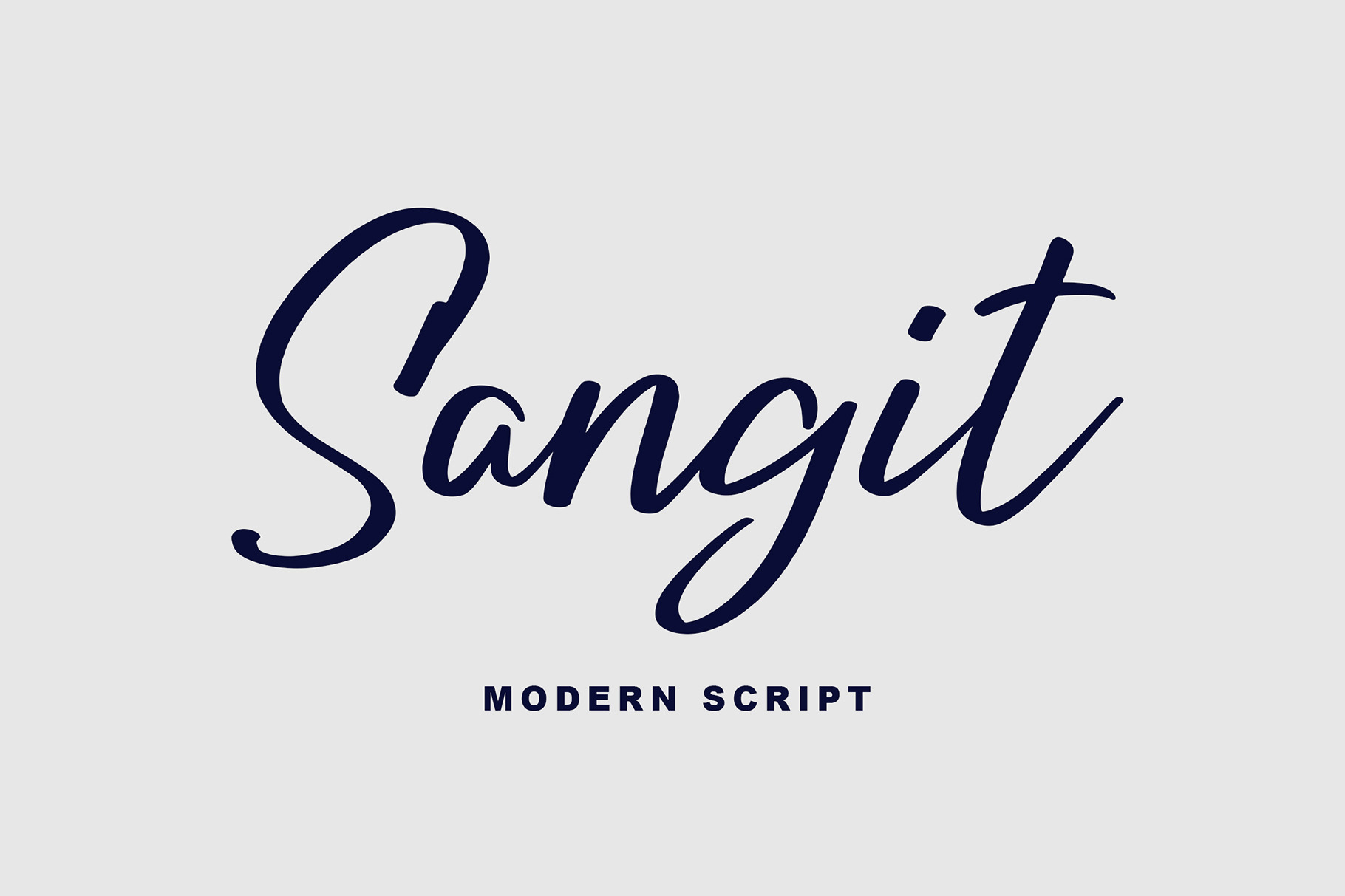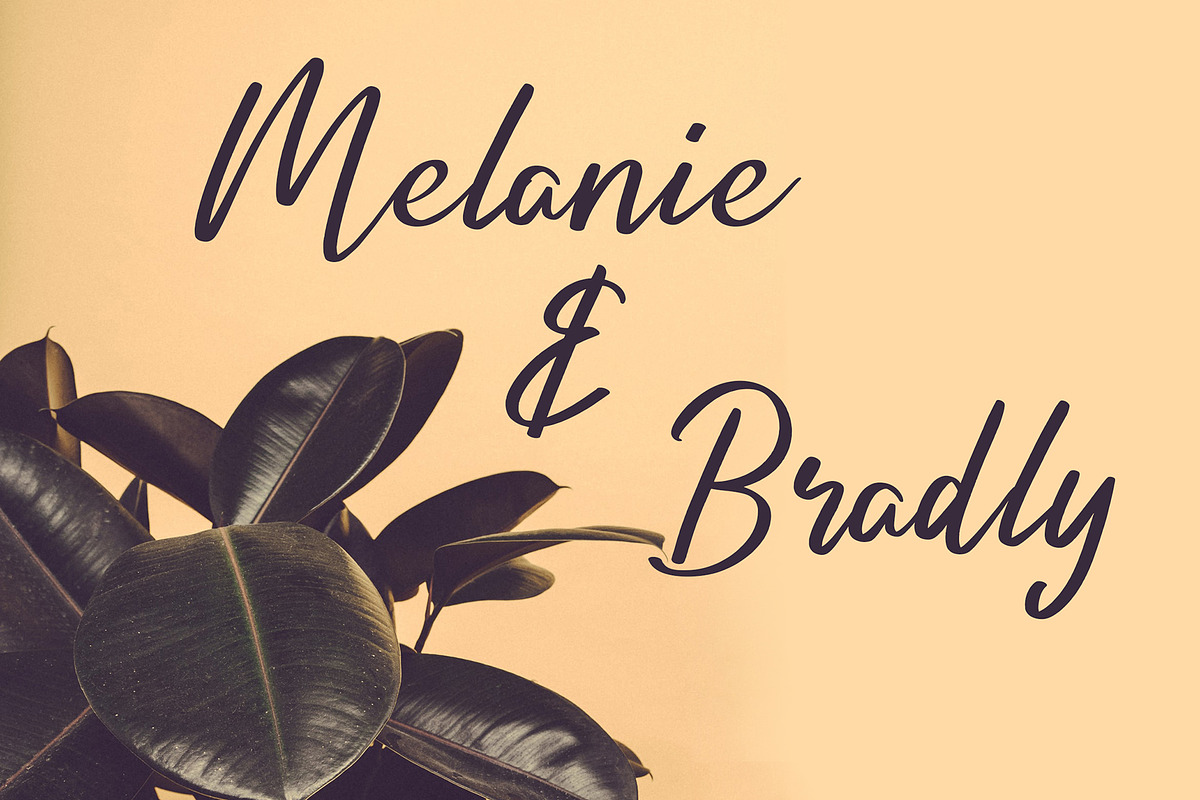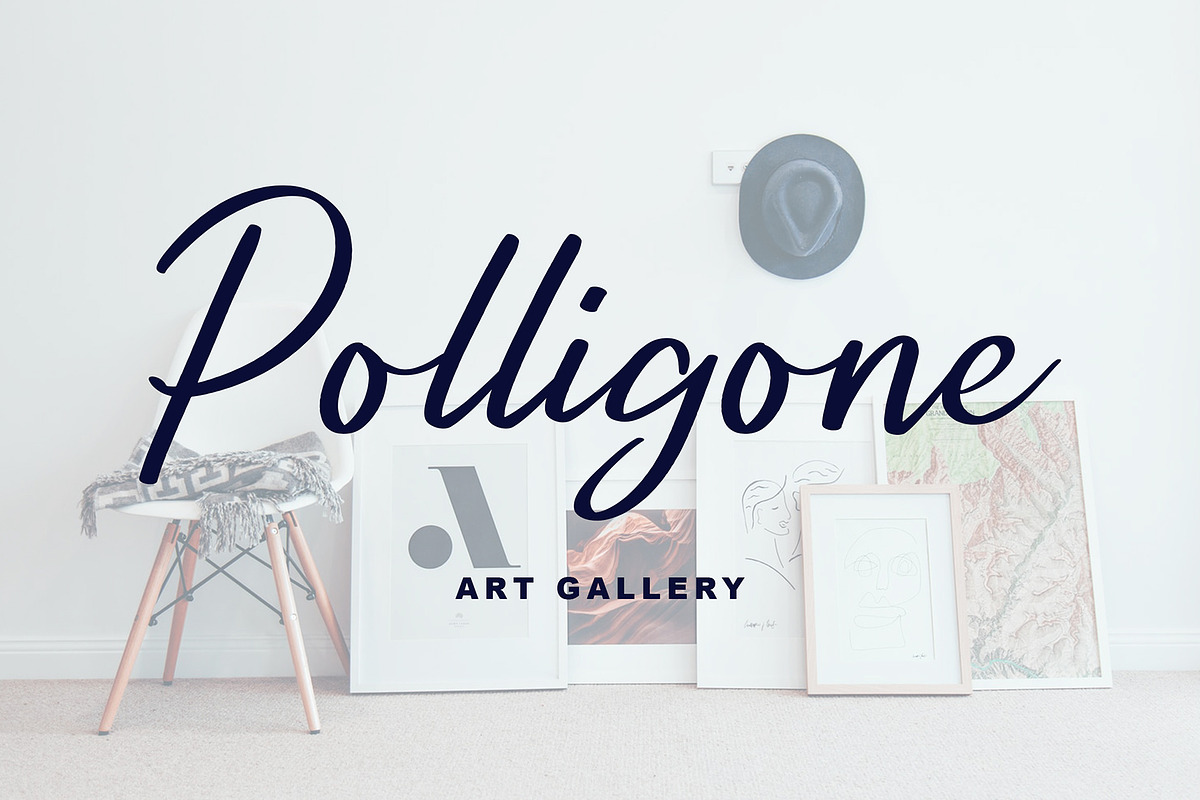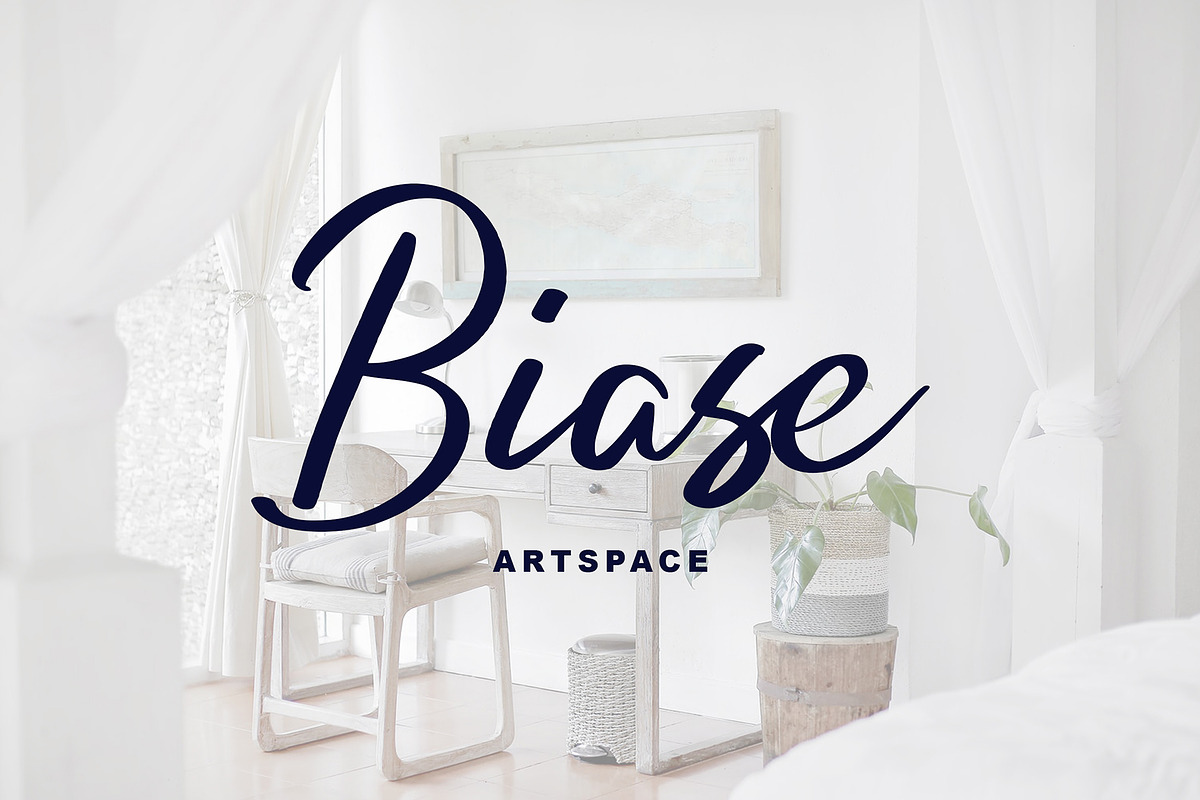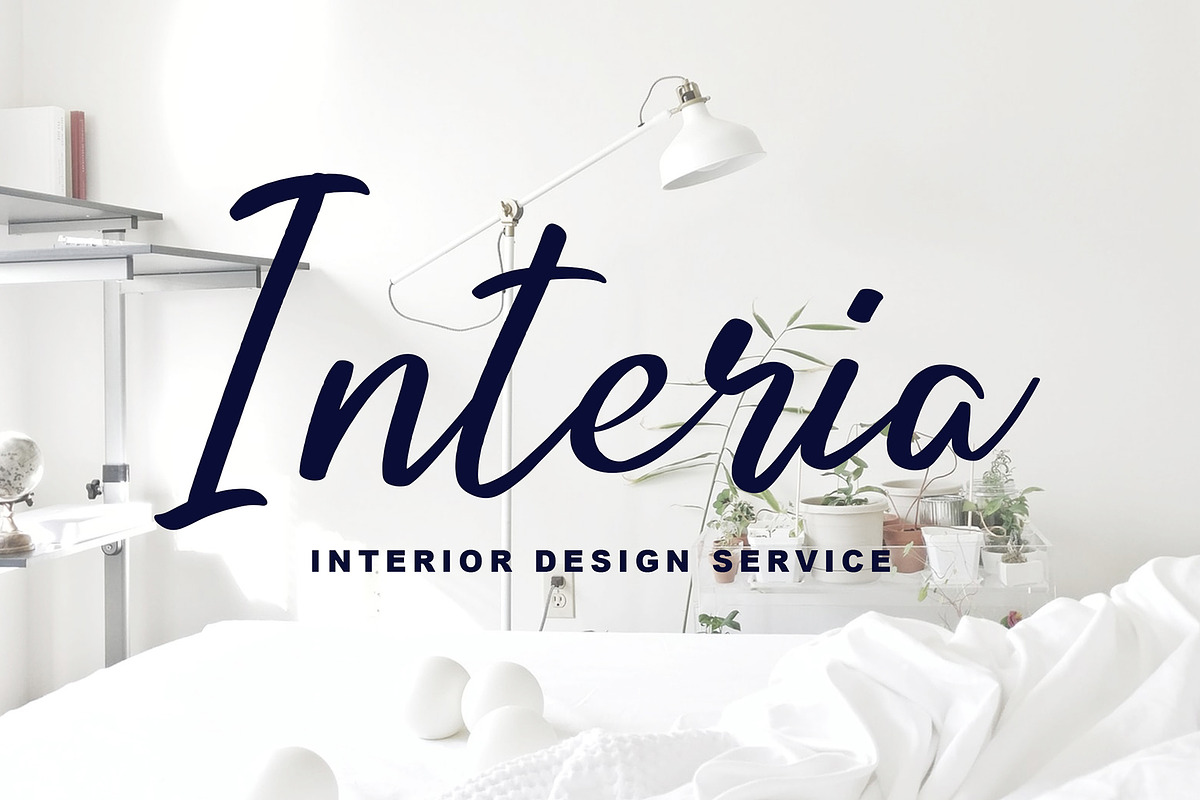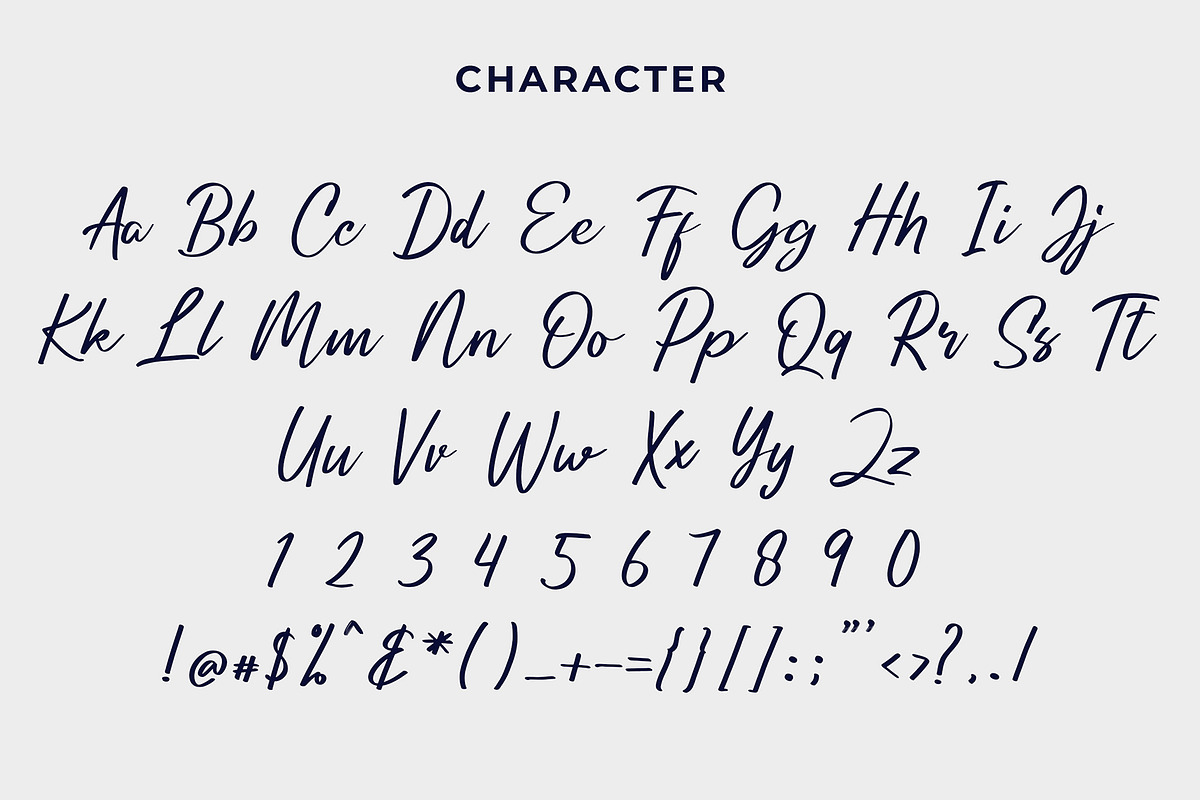
Sangit Modern Script Font
Sangit Modern Script Font is a Modern Script font can make your text appear elegant, luxurious, and modern!
Sangit is perfect for branding projects, logo, wedding designs, social media posts, advertisements, product packaging, tshirt design, product designs, label, photography, watermark, invitation, stationery and any projects.
- Tons of glyphs